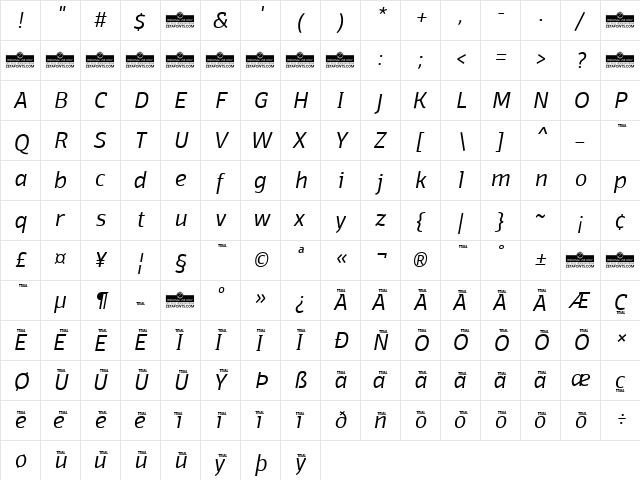
Domotika Trial Light Italic Font Preview
| Style | Light Italic |
| Foundry | Studio Kmzero |
| Designer | Cosimo Lorenzo Pancini |
Design Context for Domotika Trial Typeface
Domotika Trial takes a measured approach to typography — its balanced proportions and neutral character make it a reliable workhorse for both digital and print work. Its italic angle brings a sense of urgency and motion to the letterforms. The delicate stroke weight brings airiness and refinement to layouts.